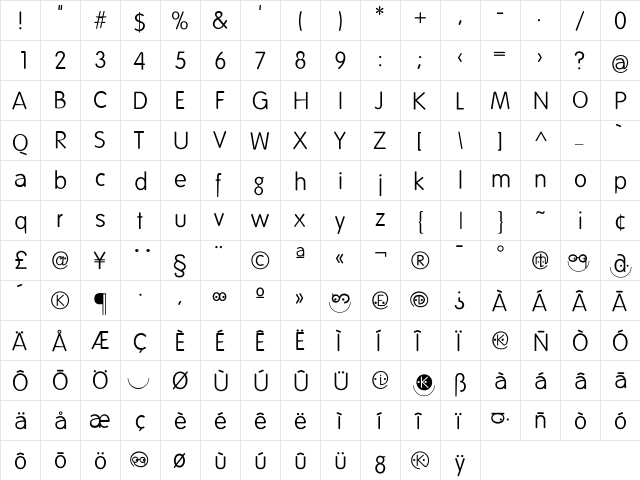
FolksDecoon Regular
Design Context for FolksDecoon Typeface
FolksDecoon is a composed and adaptable typeface that performs quietly and consistently across a wide range of design contexts.